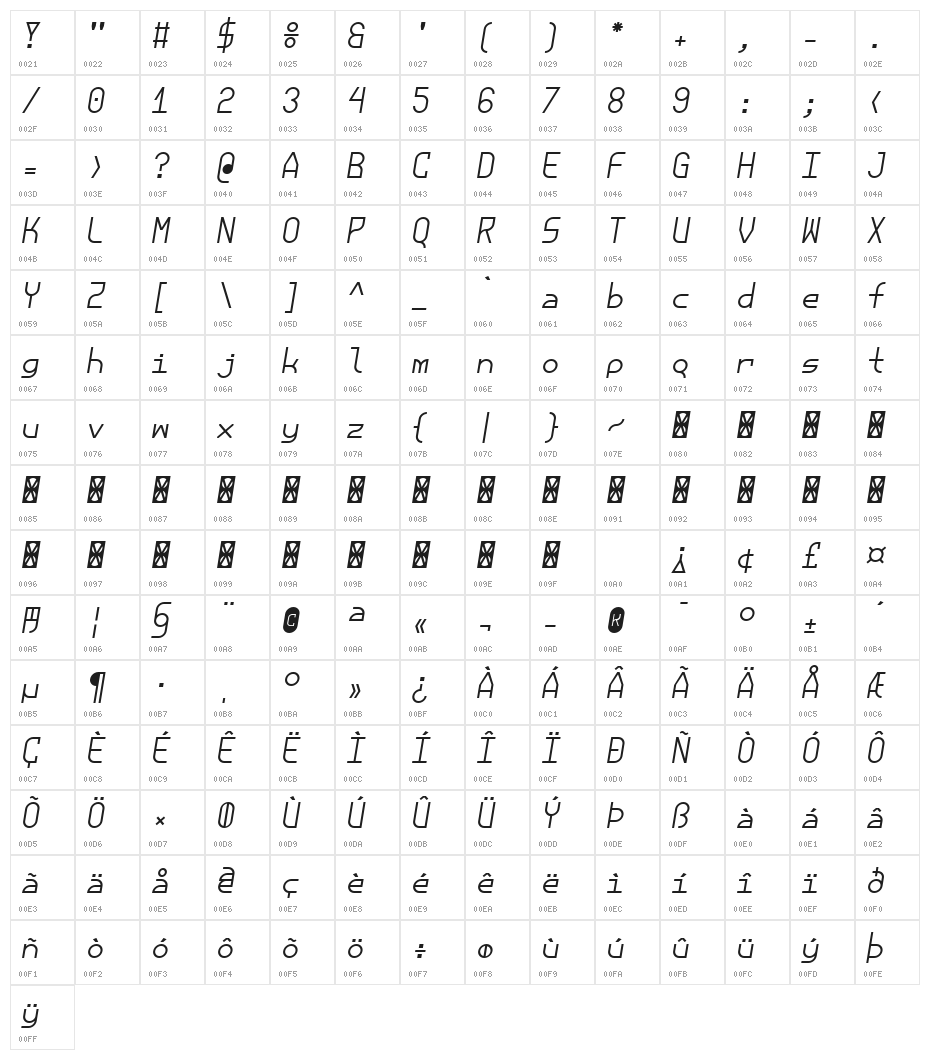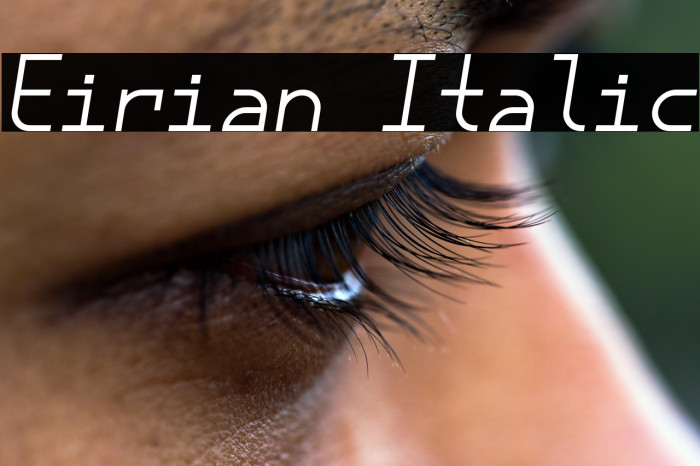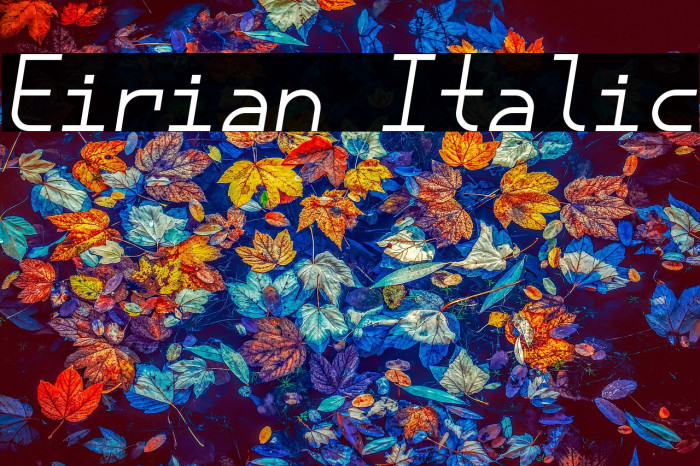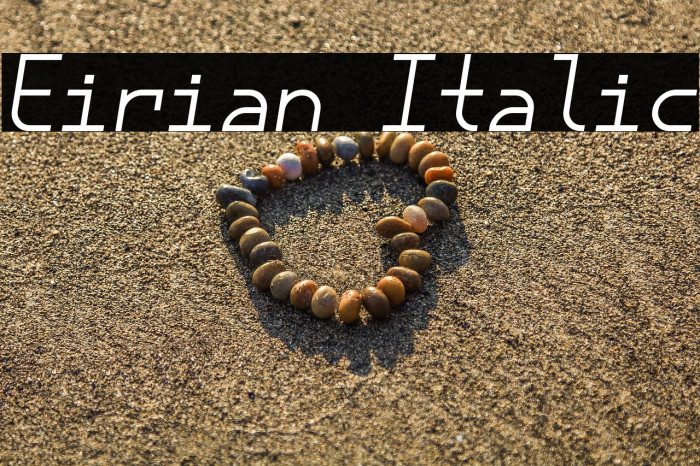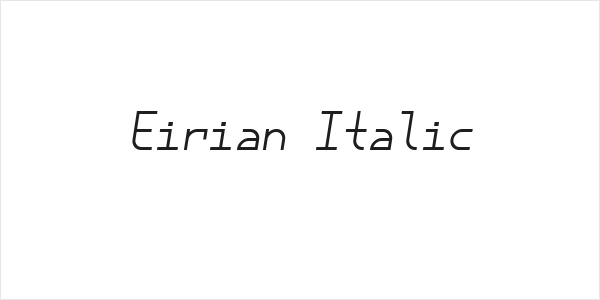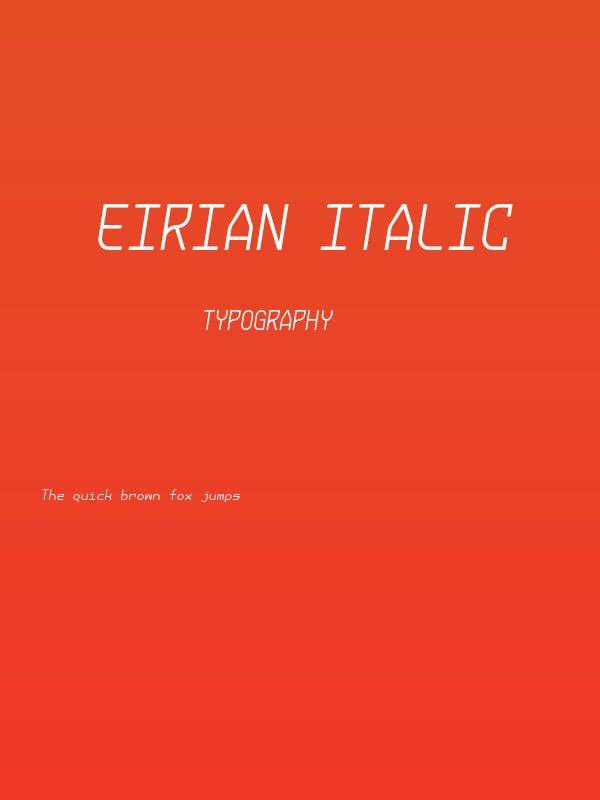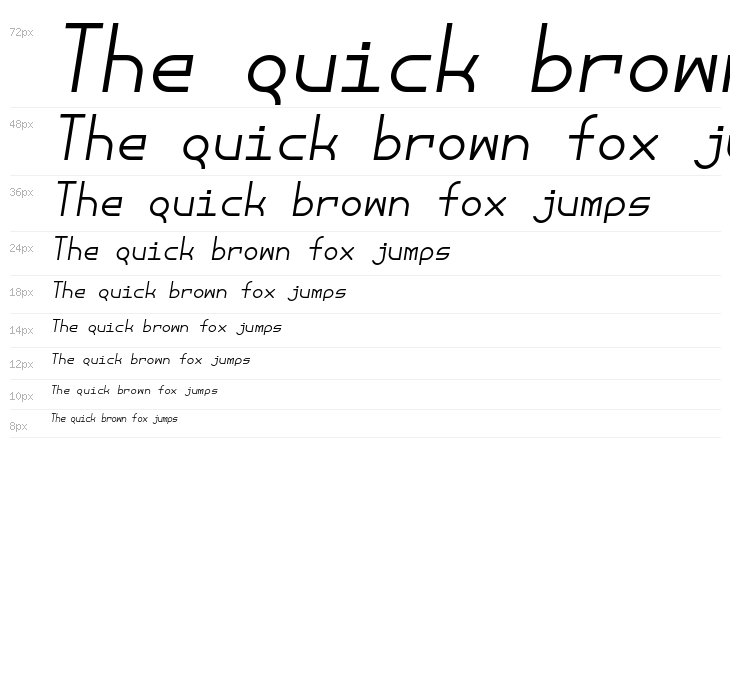
Eirian Italic Font
Eirian Italic Description
This font features a sleek and modern design with a slight italic slant, giving it a dynamic and forward-moving appearance. The characters are crafted with a clean and geometric structure, providing a sense of precision and clarity. The uppercase letters are tall and slightly narrow, while the lowercase letters maintain a consistent flow with rounded edges. The numerals are distinct and easy to read, complementing the overall style. Special characters are well-integrated, maintaining the font's cohesive look. This font is versatile, suitable for both digital and print media, offering a contemporary aesthetic that can enhance a variety of design projects.